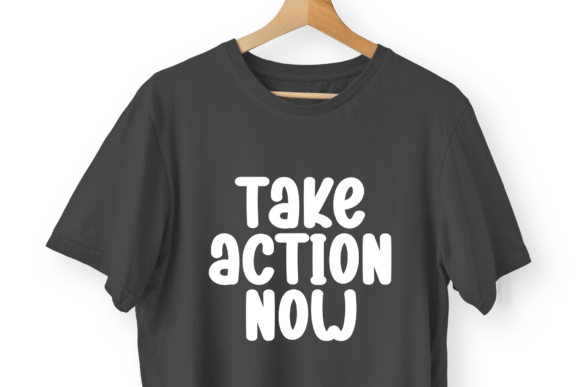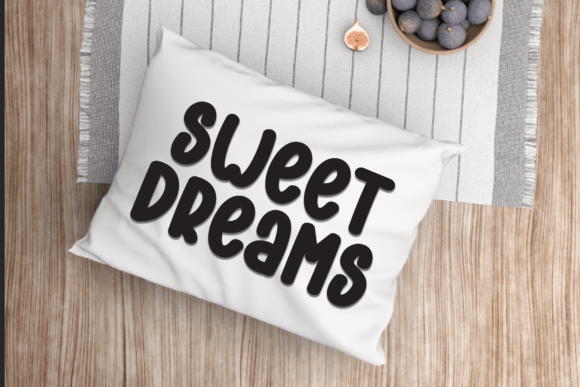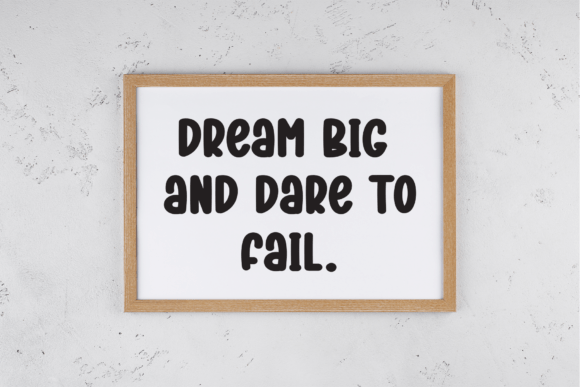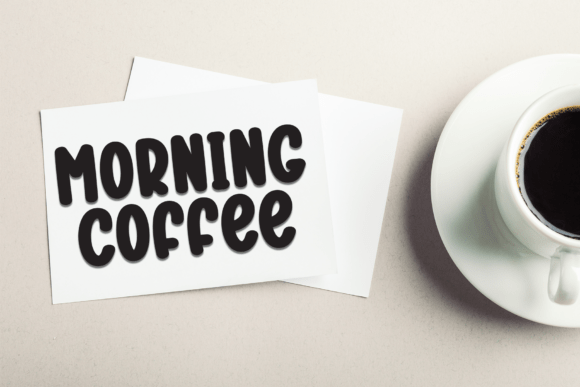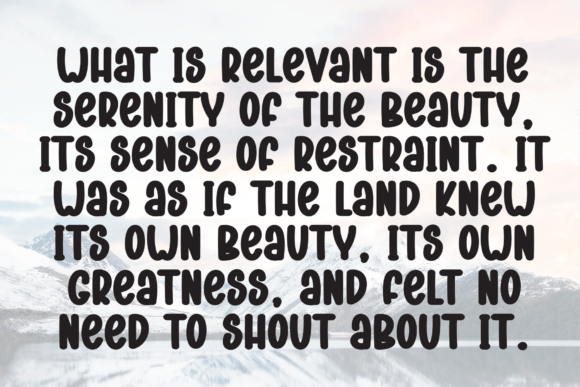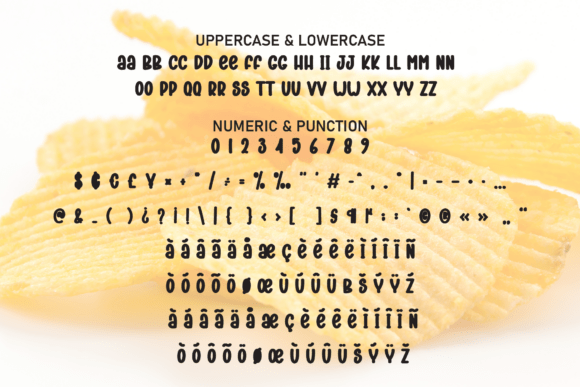
Introduction to Potato Chips Font
There’s nothing quite like the feeling of creating something from scratch, watching an idea transform into a beautiful visual representation of your imagination. For designers, those ‘aha’ moments are what make the job so rewarding. And, for many of us, there’s no better feeling than discovering a new design resource that perfectly captures the essence of our creative vision. That’s exactly what the Potato Chips Font does – it brings a carefree, summery vibe to any project, making it a must-have for designers looking to add some personality to their work.
Whether you’re working on a summer poster, event flyer, or playful branding project, this cheerful typeface is sure to bring a breezy, laid-back feel to your creative project. And, the best part? It’s available for free download, making it an accessible and valuable resource for designers of all levels.
Key Features of Potato Chips Font
- Unique, playful design that adds a creative touch to any project
- Suitable for various creative projects, including logos, packaging, and advertising materials
Honest Review: Potato Chips Font
As a designer, I was excited to try out the Potato Chips Font, especially since it’s a free download. I was hoping for a high-quality design resource that I could use for my next creative project.
What works well: ✨ The font’s playful, hand-drawn style is perfect for projects that require a casual, approachable vibe. The bold and regular weights offer a good range of options for emphasizing text. I also appreciated the transparent background, which made it easy to layer the font over other design elements.
Overall, I was pleased with the Potato Chips Font’s performance, but I wish it offered more flexibility for commercial use. If you’re working on a personal or small-scale project, this font could be a great choice.
- Perfect for casual, playful projects
- Good range of weights and styles
- May not be suitable for large-scale projects or multiple languages
The Potato Chips Font is a free design resource ideal for creative projects that require a unique, eye-catching look. With its transparent background, this font is perfect for adding a touch of personality to your designs.
The Potato Chips Font is perfect for:
Food and beverage branding
Advertising and marketing materials
Social media graphics